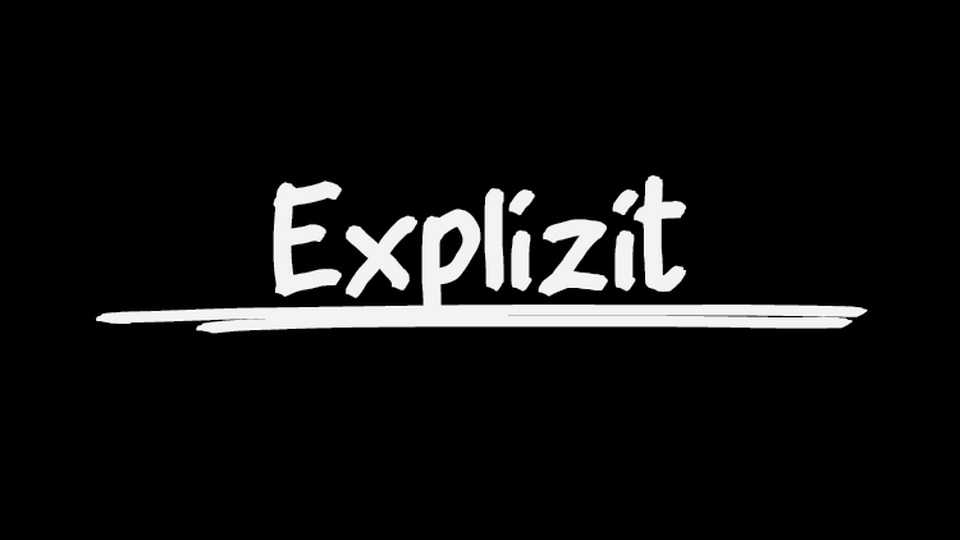
Download Explizit font, a typeface that invites you to embrace the textured imperfections of hand-painted artistry. Explizit font is all about creating designs that feel like they’ve been handcrafted with love and care.